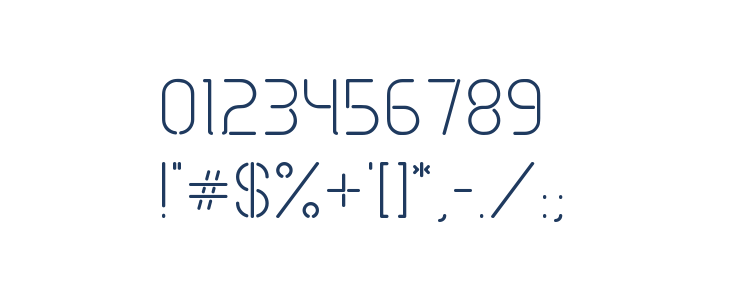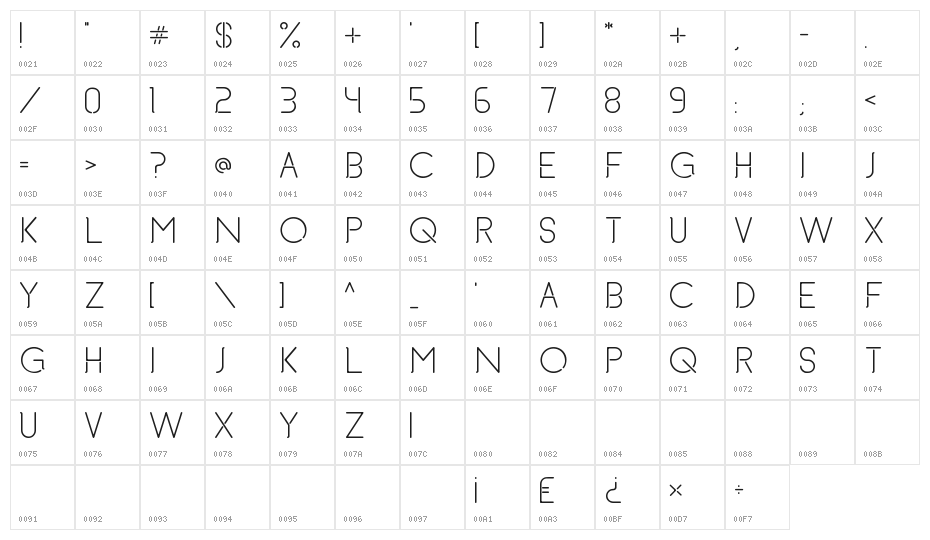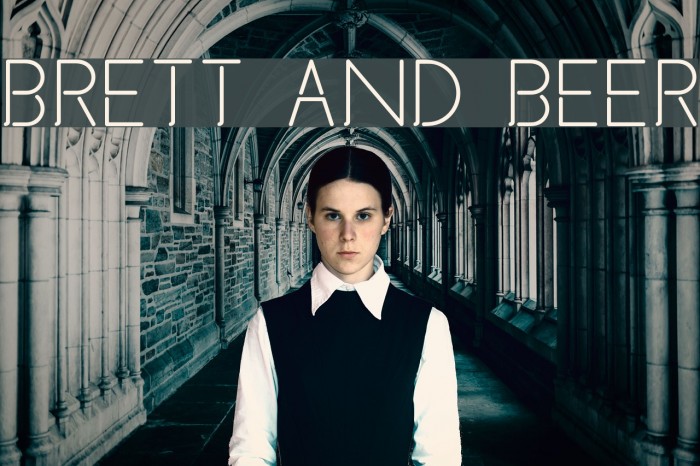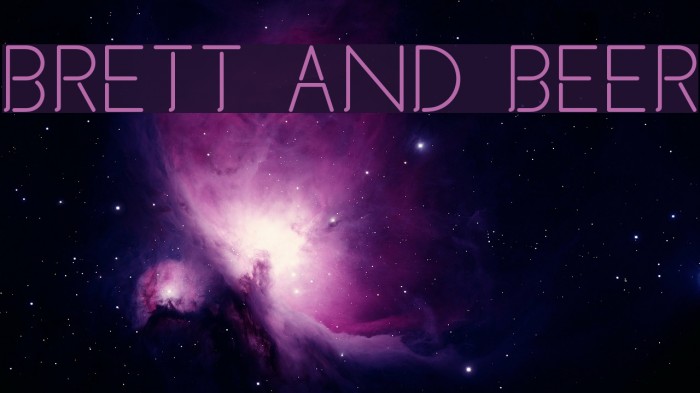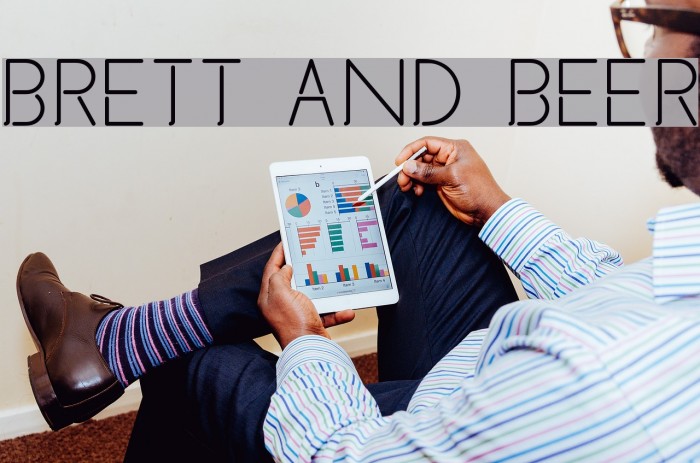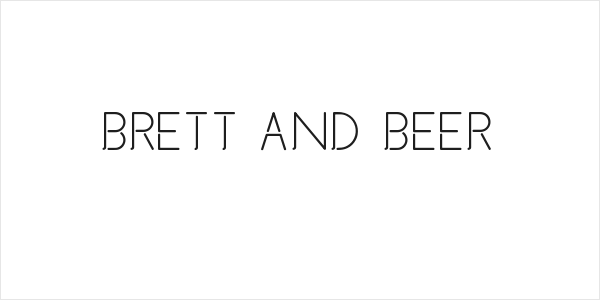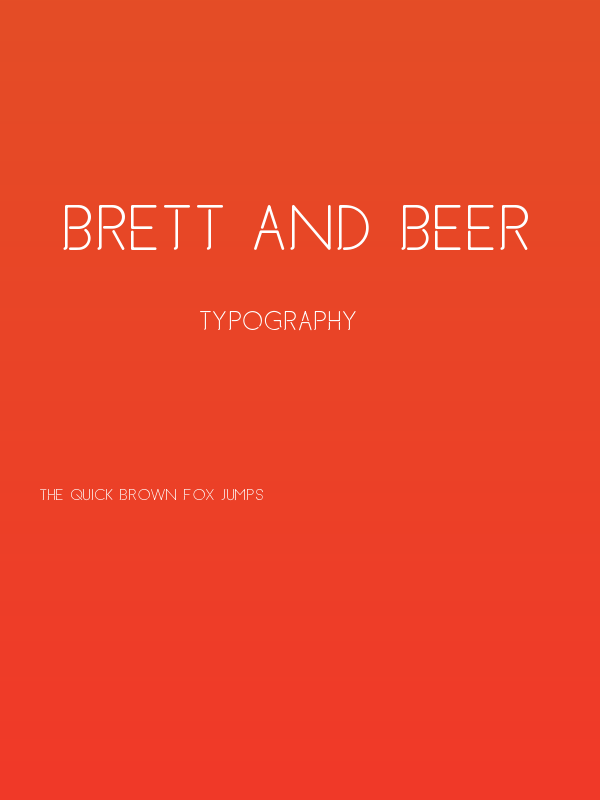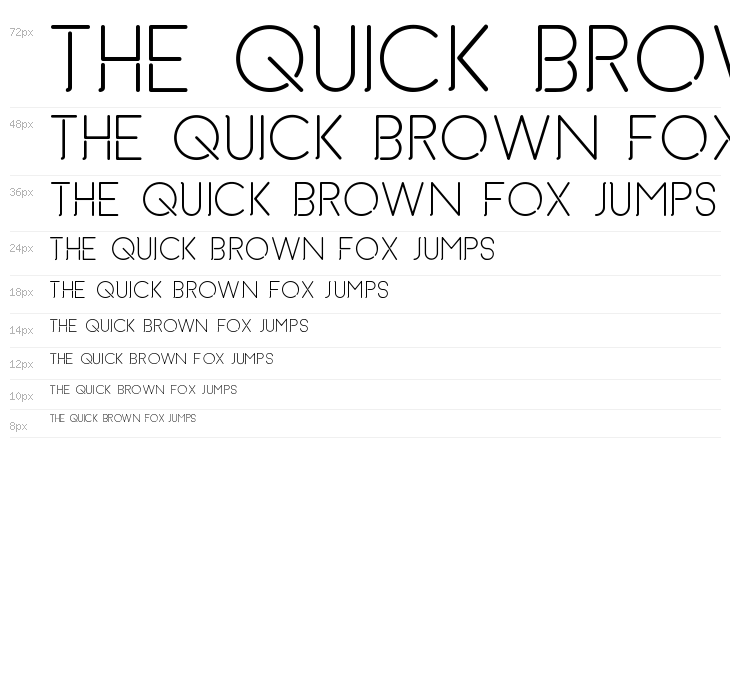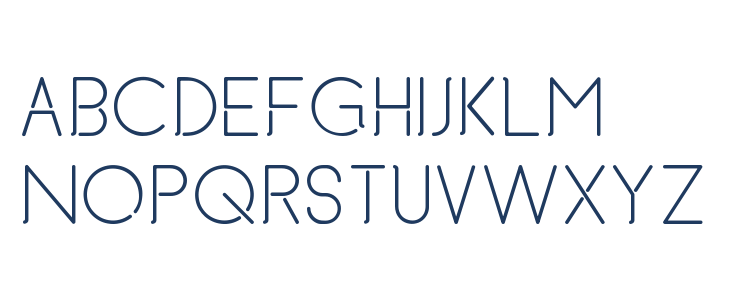
Brett and Beer Font
Brett and Beer Description
This font features a modern, geometric design with clean lines and a minimalist aesthetic. The uppercase and lowercase letters are uniform in width, creating a harmonious and balanced appearance. The numerals and special characters maintain the same sleek style, making them easily legible. The font's structure is characterized by its open counters and consistent stroke weight, which adds to its readability. Its contemporary look is suitable for various digital and print applications, offering versatility in design projects.
Proposed ProjectsIdeal for branding, digital interfaces, modern print materials, and minimalist design projects.